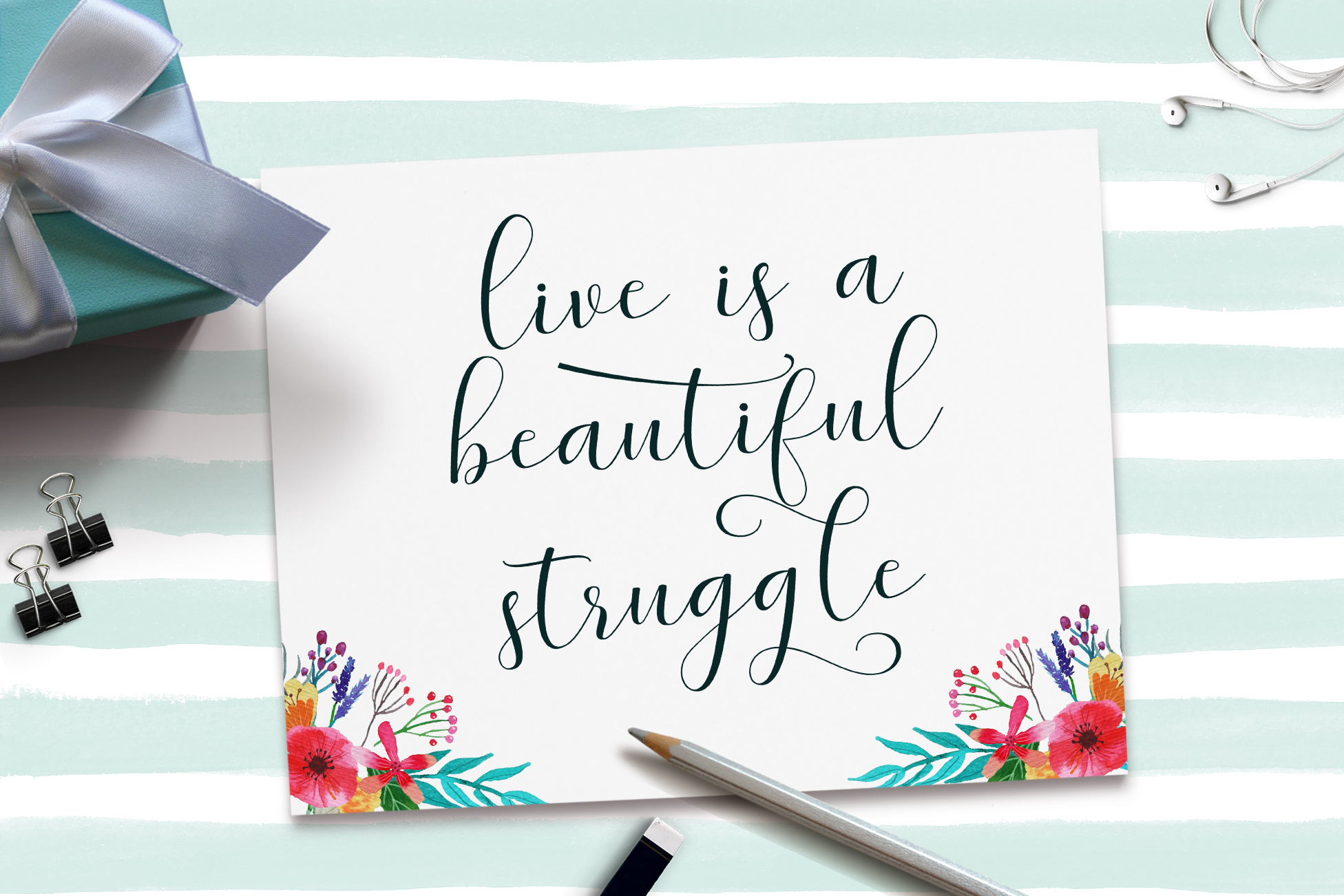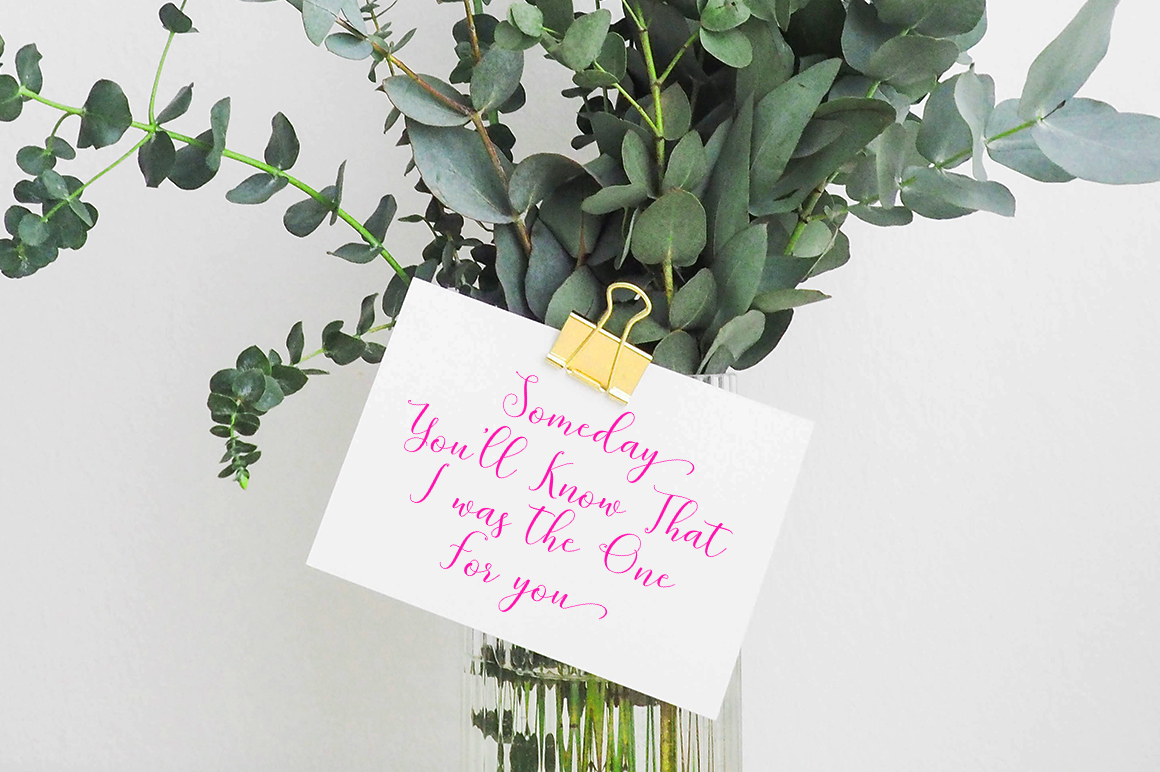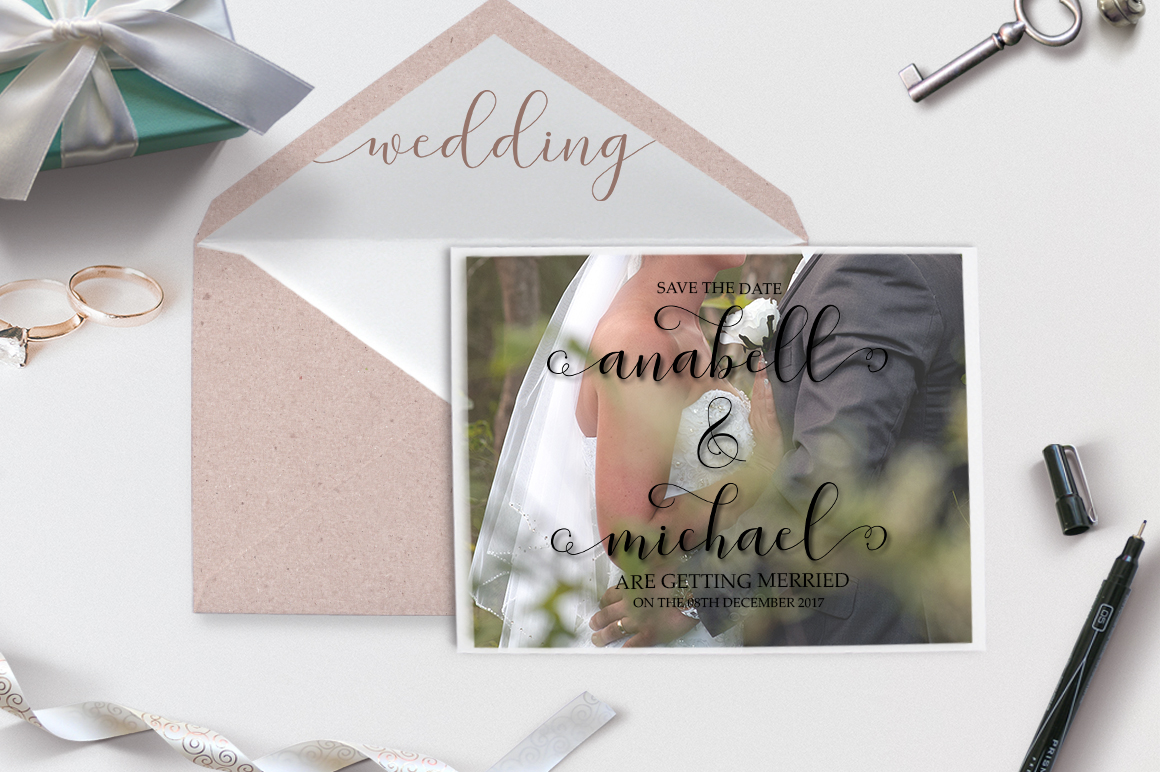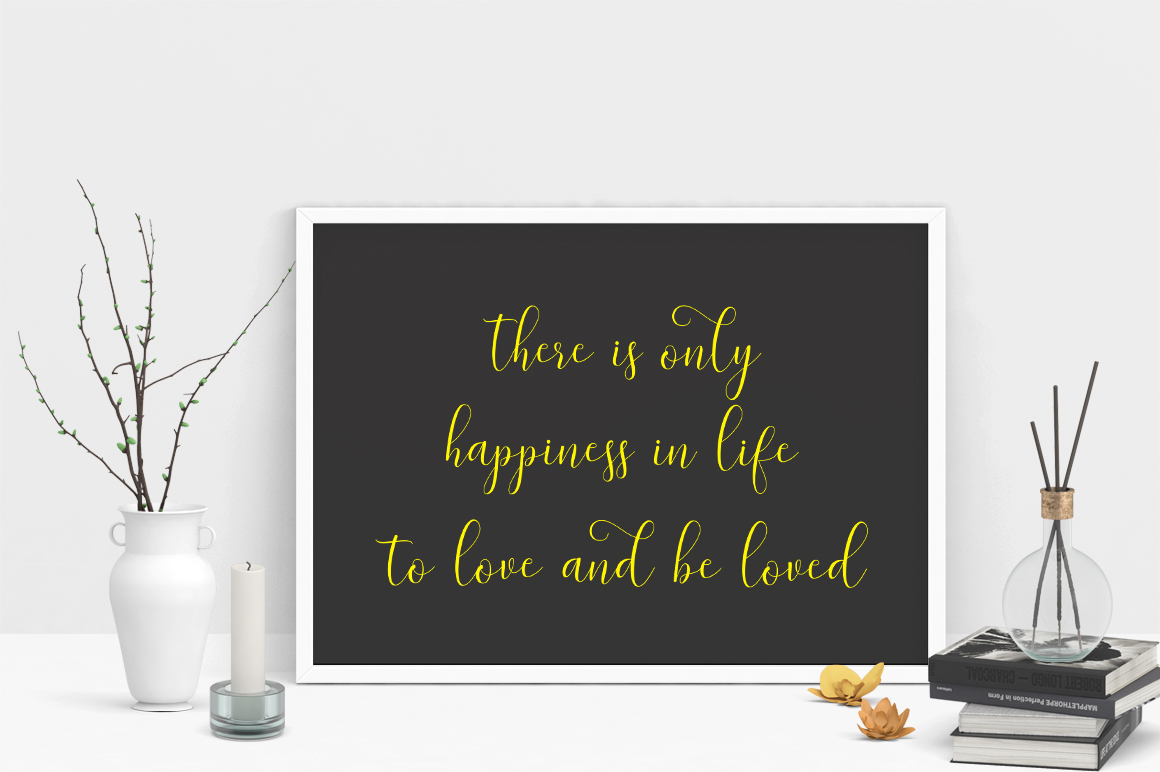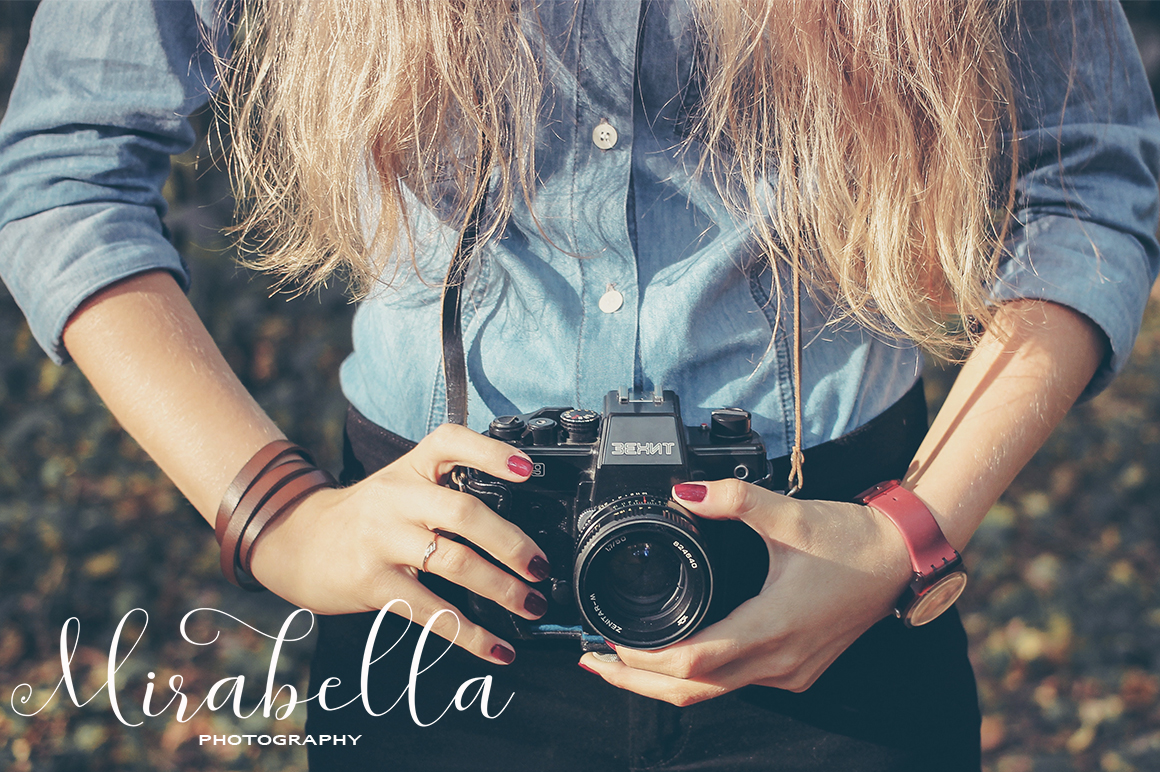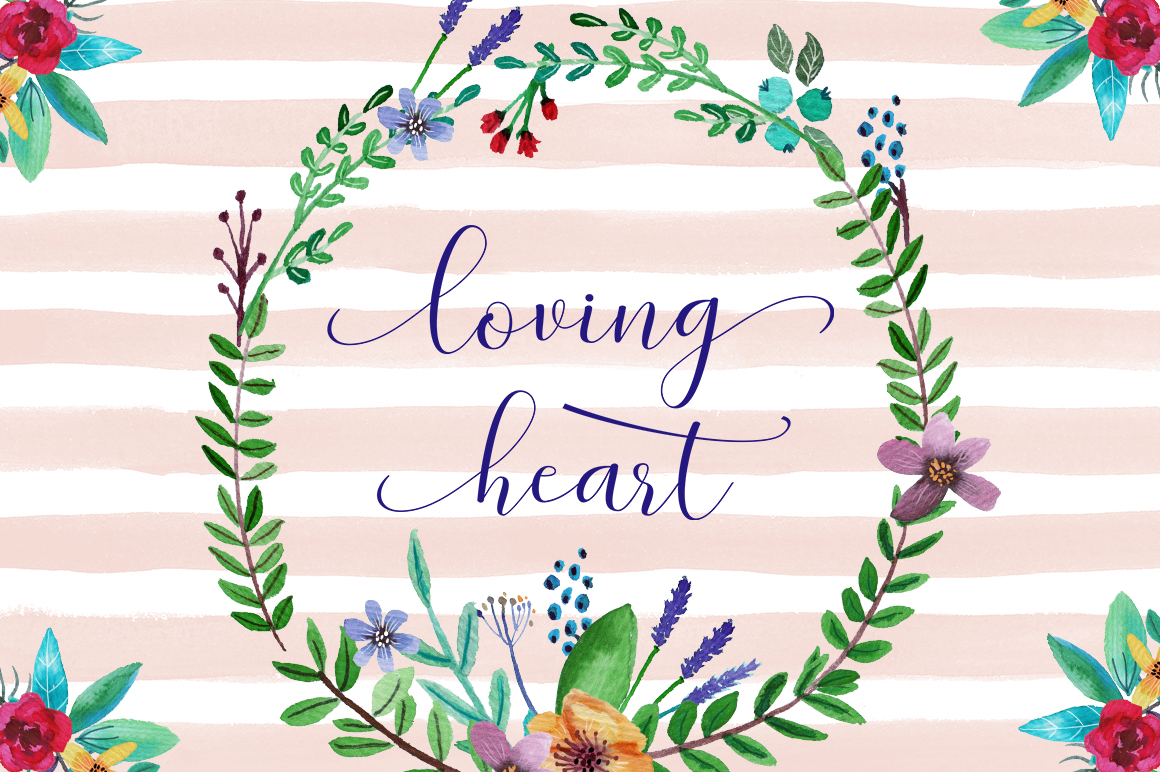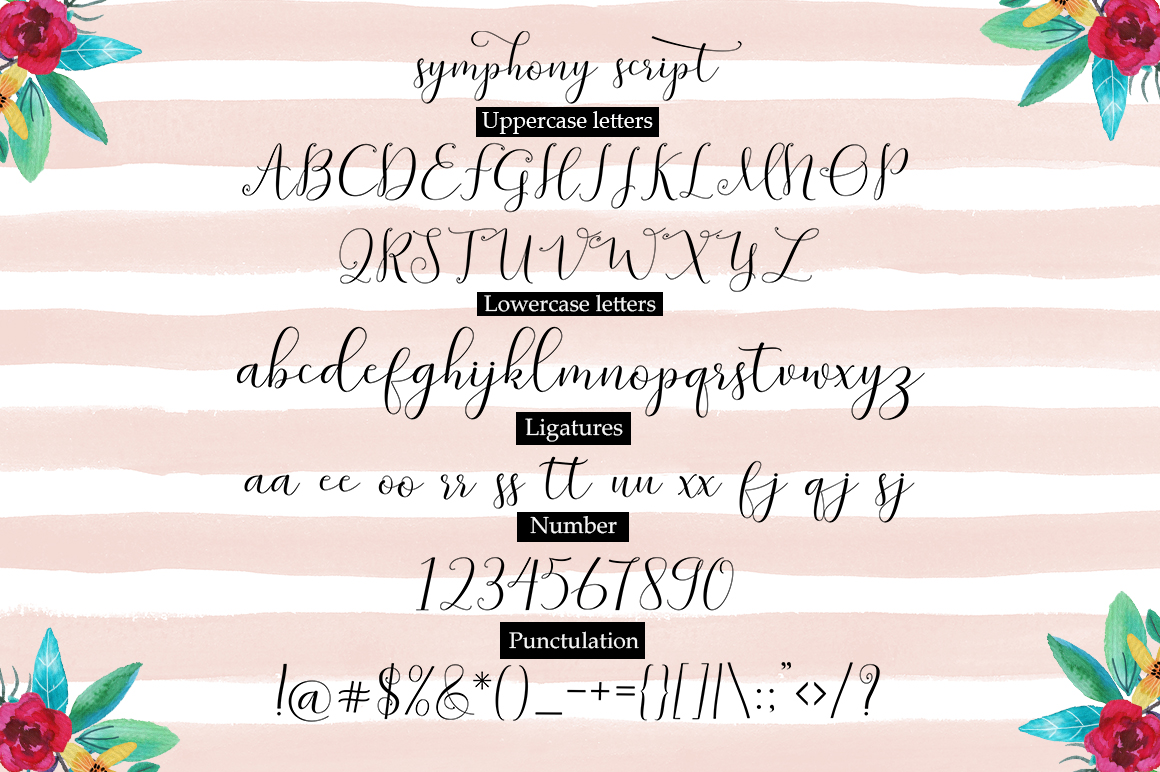
Symphony Font
About Symphony Font
The Symphony font is a modern calligraphic-style script font.
The font is elegant and feminine and features stunning swashes. This muti-purpose font can be used for many different types of designs.